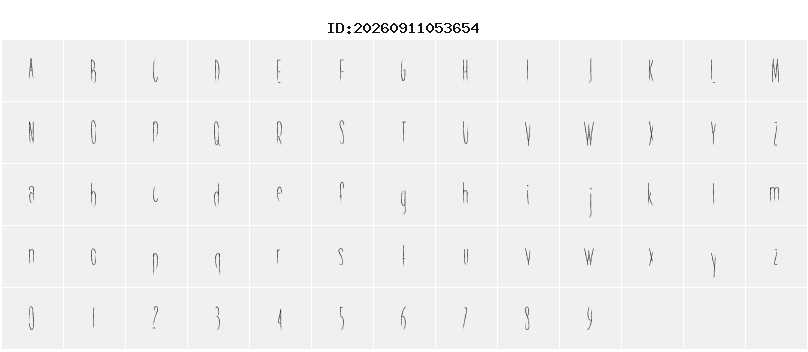
• Font Name: Vegan Pizza
• Designer: Rachel Lauren Adams
About Vegan Pizza.ttf
Vegan Pizza.ttf is a modern, elegant sans-serif font designed for ultimate readability and visual harmony. Perfect for branding, headlines, web design, and print materials.